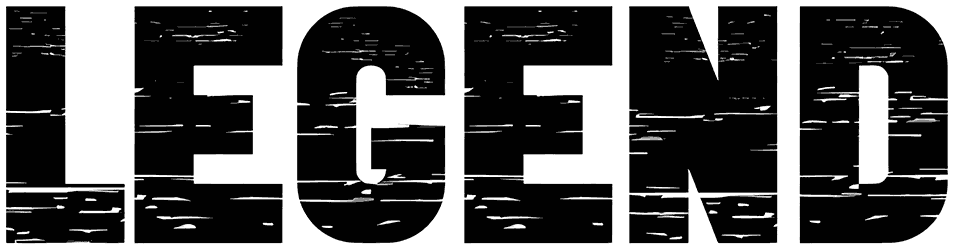
Legend Font
If you are seeking a modern and digital letterform that has a distorted form, this glitch font will capture you. The bold sans serif characters of the Legend font can give a powerful and unique face to your intended words. Even though there is no offer for lowercase letters, this eroded font is going to make your projects so cool.